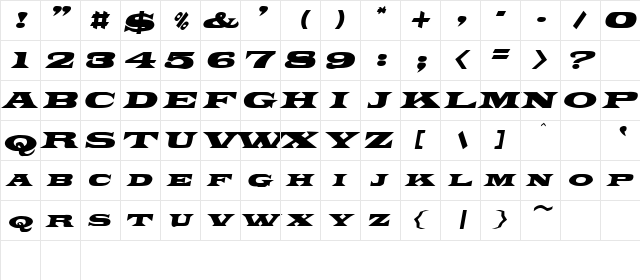
Nomen Bold-Oblique
Design Context for Nomen Typeface
Nomen is a composed and adaptable typeface that performs quietly and consistently across a wide range of design contexts. The slanted form adds forward momentum and visual energy. Its bold stroke weight gives it real presence on the page.
Pro Tip: Use Nomen for emphasis, pull quotes, and subheadings where its slanted energy can add rhythm to the layout.